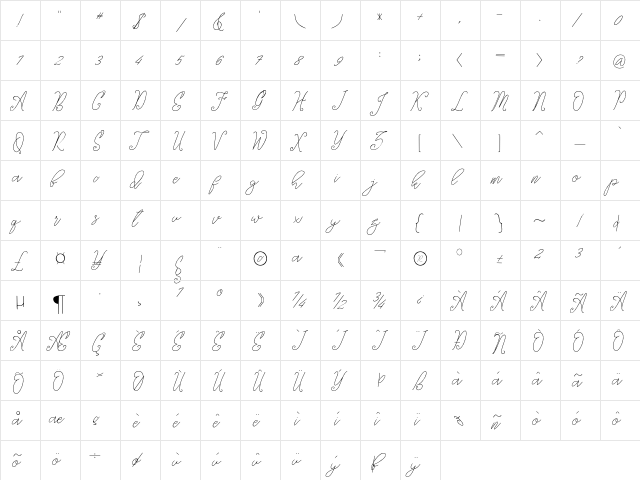
the kastle Regular
Design Context for the kastle Typeface
the kastle is a composed and adaptable typeface that performs quietly and consistently across a wide range of design contexts.